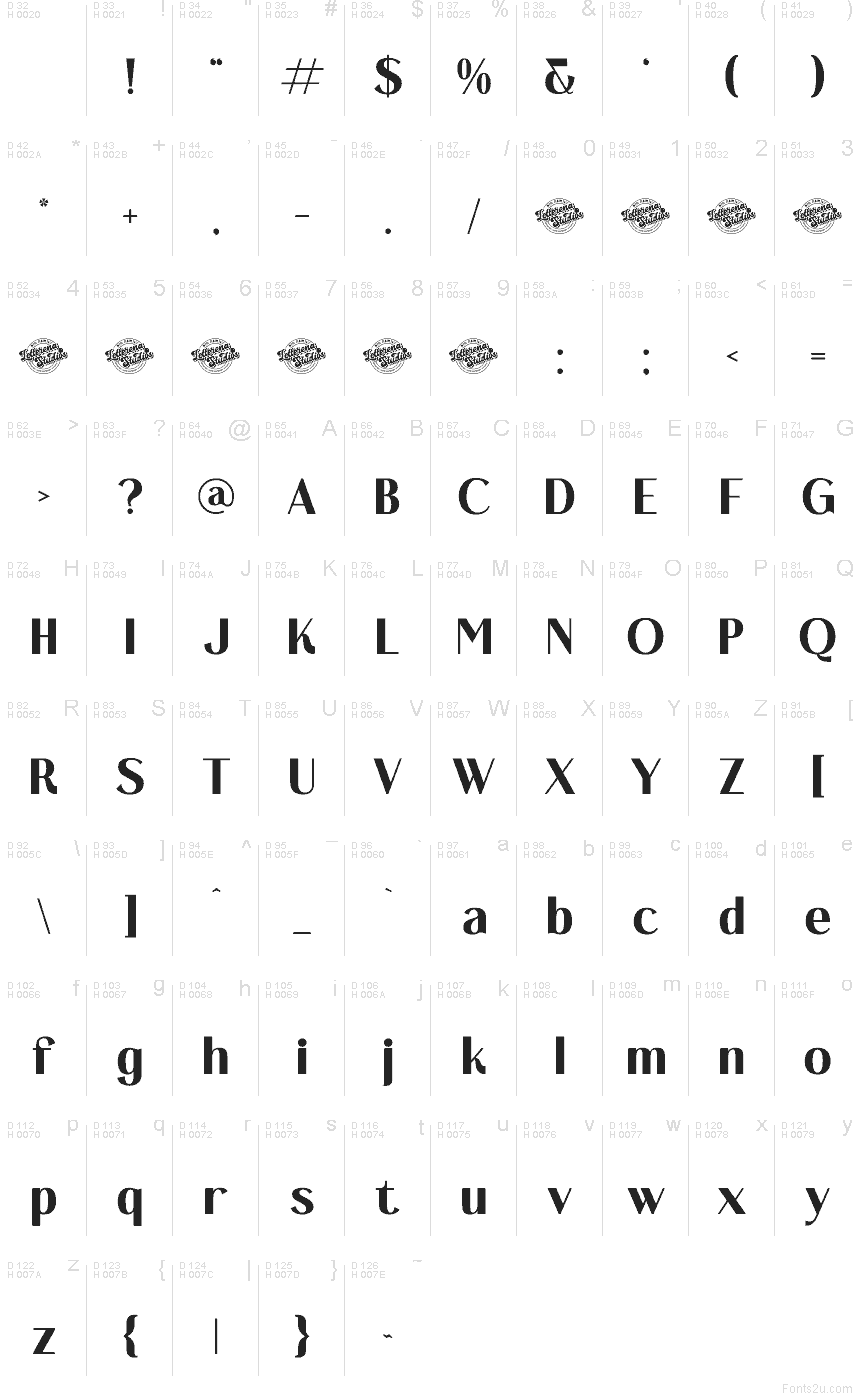
Hannah Claira DEMO VERSION
Hannah Claira font by Letterena Studios is a free sans serif typeface with a chic, editorial polish. The letters feel tall and confident, with smooth vertical strokes and neatly trimmed curves that give every word a luxe, magazine-like presence. Generous counters and even rhythm keep it crisp on screen and in print, so titles and names feel both refined and readable.
Using Hannah Claira, you can bring understated glamour to logo design, fashion branding, magazine covers, product packaging, wedding stationery, and bold social media graphics. This free font shines when used large and airy, then paired with a simple geometric sans for longer supporting text.